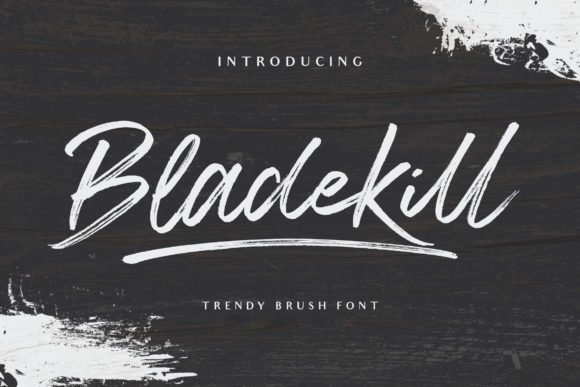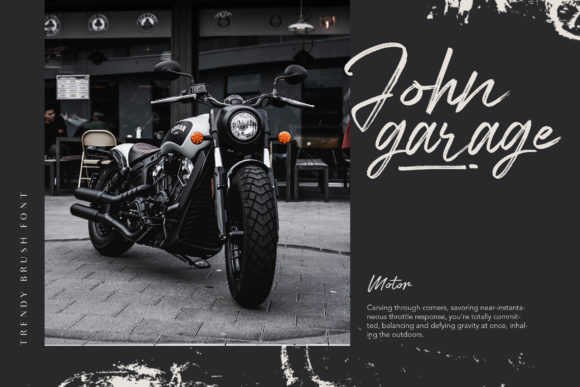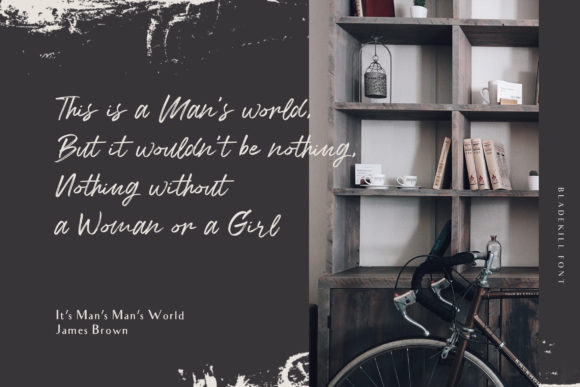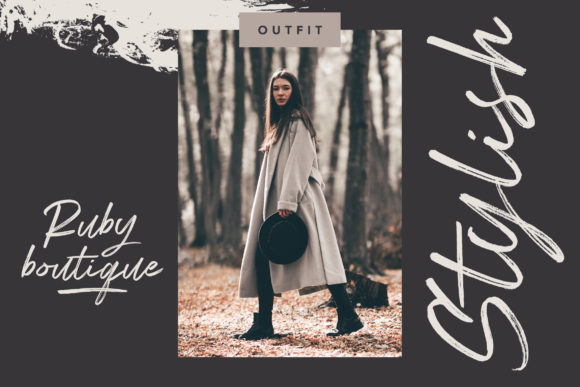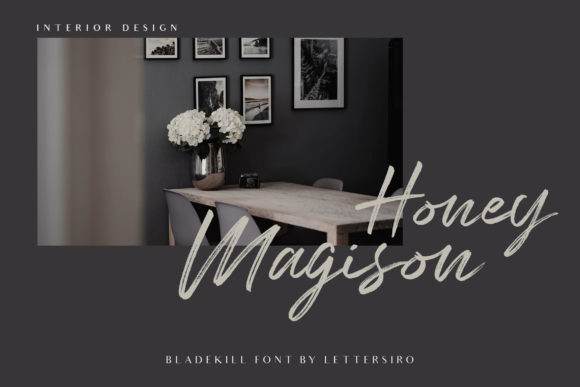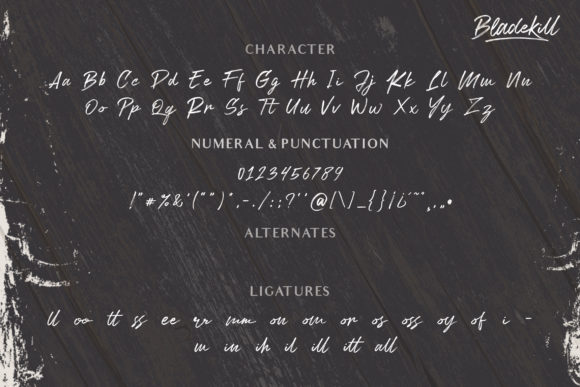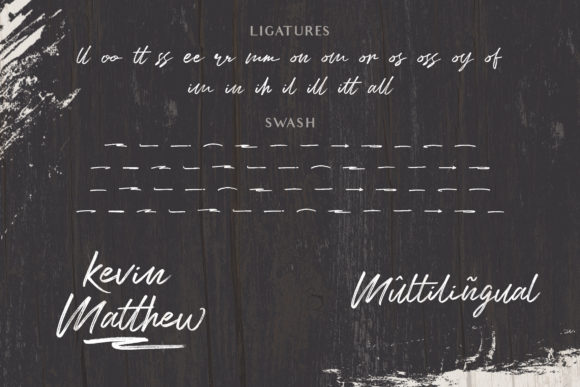
Bladekill Font
About Bladekill Font
Bladekill is a flowing brush handwritten font. It looks beautiful on a variety of designs requiring a personalized style, such as wedding invitations, thank you cards, weddings, greeting cards, logos and so on.